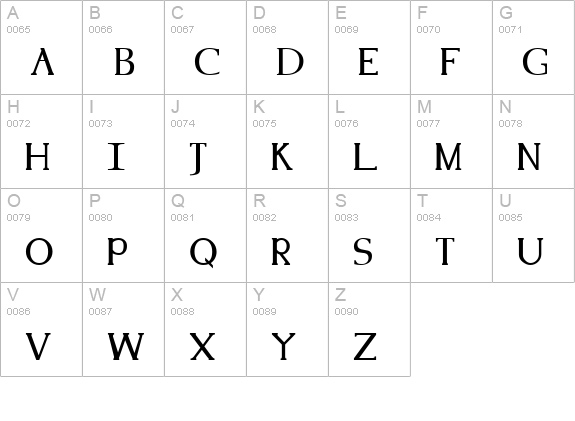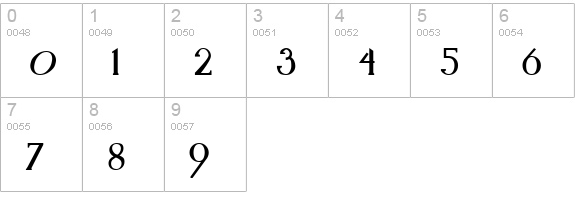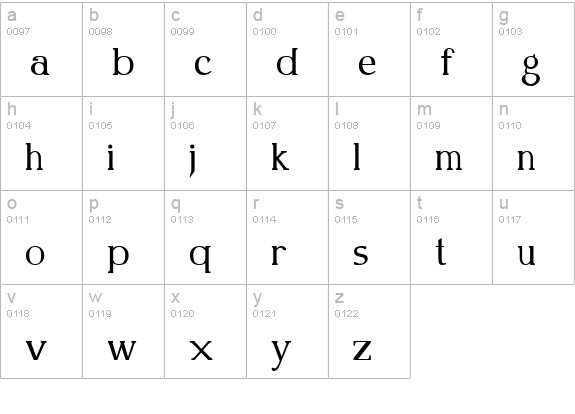
Kennon Normal Font Details
Kennon Normal is the standard, neutral variant in the Kennon typeface family \xE2\x80\x94 well suited to general body text, paragraphs, and standard typographic work.
Kennon Normal font is an elegant and versatile typeface that combines modern simplicity with timeless sophistication. It is the perfect choice for a wide range of design projects, from professional branding to creative typography. With its clean lines and balanced proportions, Kennon Normal exudes a sense of professionalism and clarity, making it ideal for both print and digital applications. What sets Kennon Normal apart is its versatility. Whether you're designing a sleek corporate logo or a stylish wedding invitation, this font adapts effortlessly to any context, adding a touch of refinement and elegance to your designs. Its carefully crafted letterforms and subtle details make it a truly versatile typeface that can be used in a variety of design styles. One of the best things about Kennon Normal font is that it is free to download at FontsMarket.com. This means that you can enjoy its premium quality and beautiful design without any cost. Whether you're a professional designer or a hobbyist, having access to high-quality fonts like Kennon Normal can greatly enhance your creative projects. So, if you're looking for a font that combines modern simplicity with timeless elegance, Kennon Normal is the perfect choice. Its versatility and beautiful design make it suitable for a wide range of design projects. And the fact that it is freely available to download at FontsMarket.com makes it even more appealing. Give your designs a touch of sophistication with Kennon Normal font today.